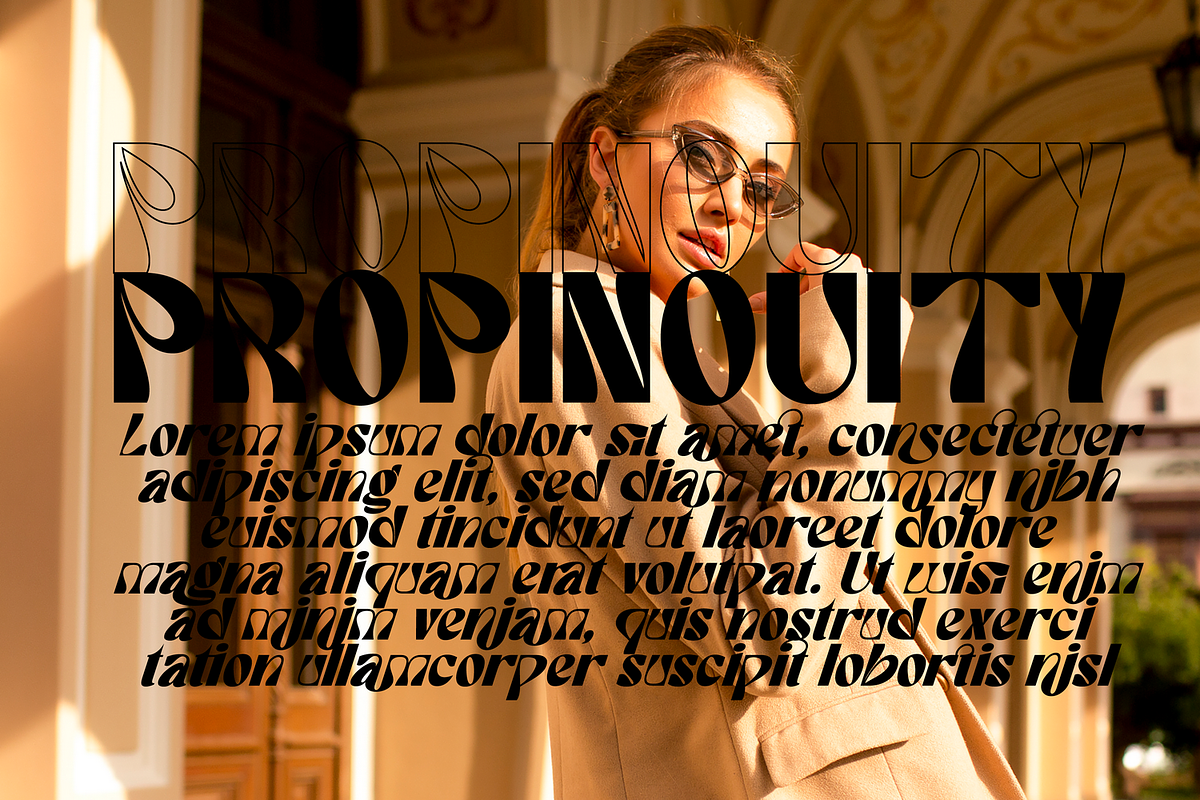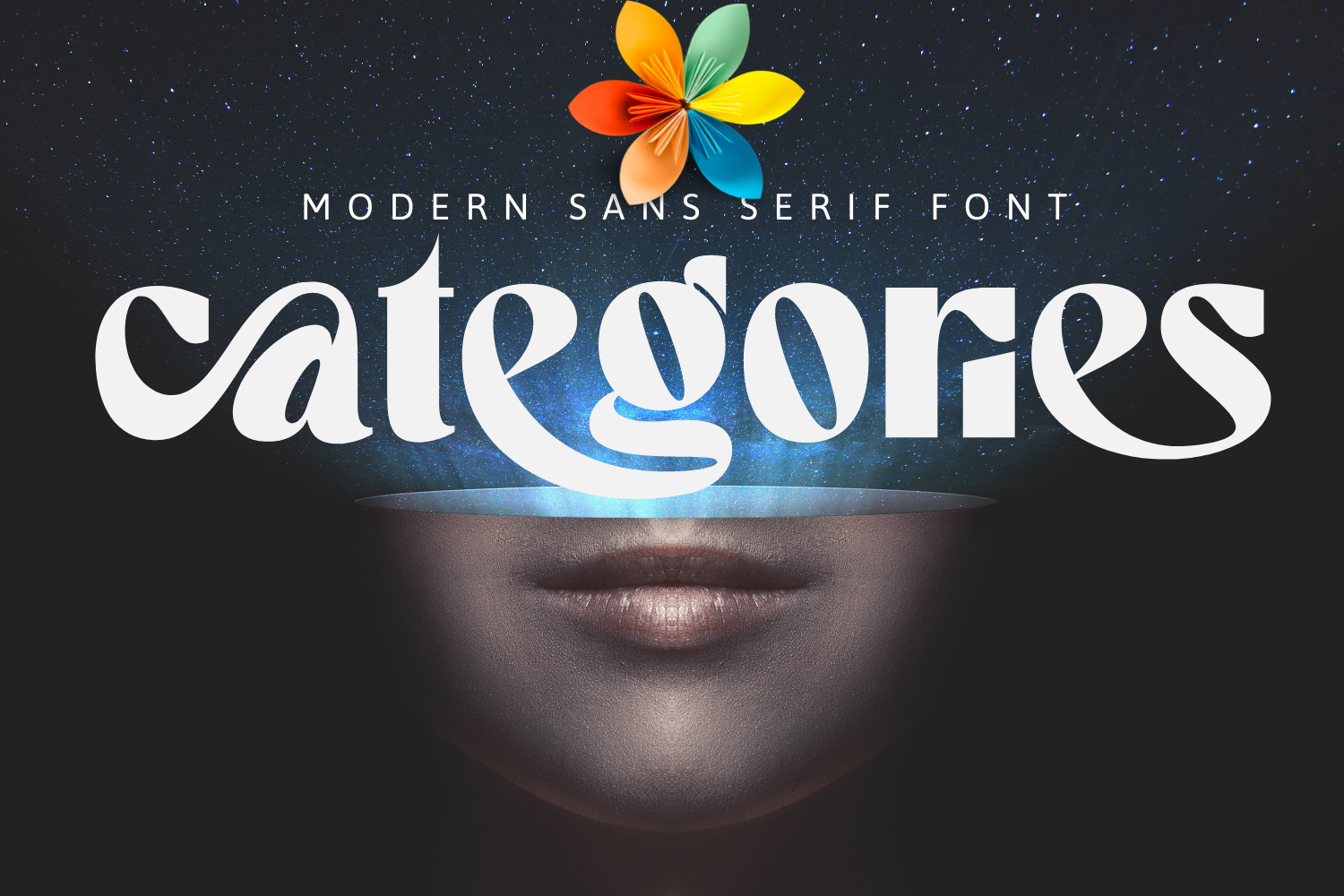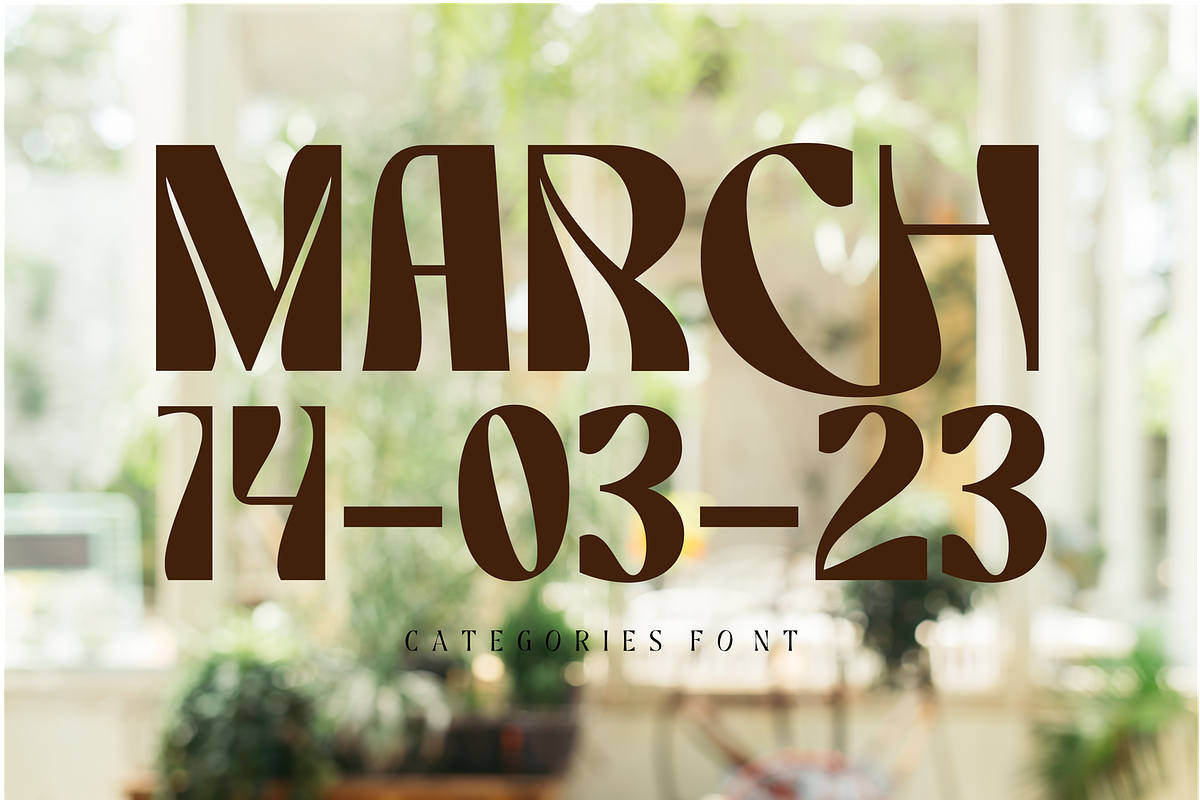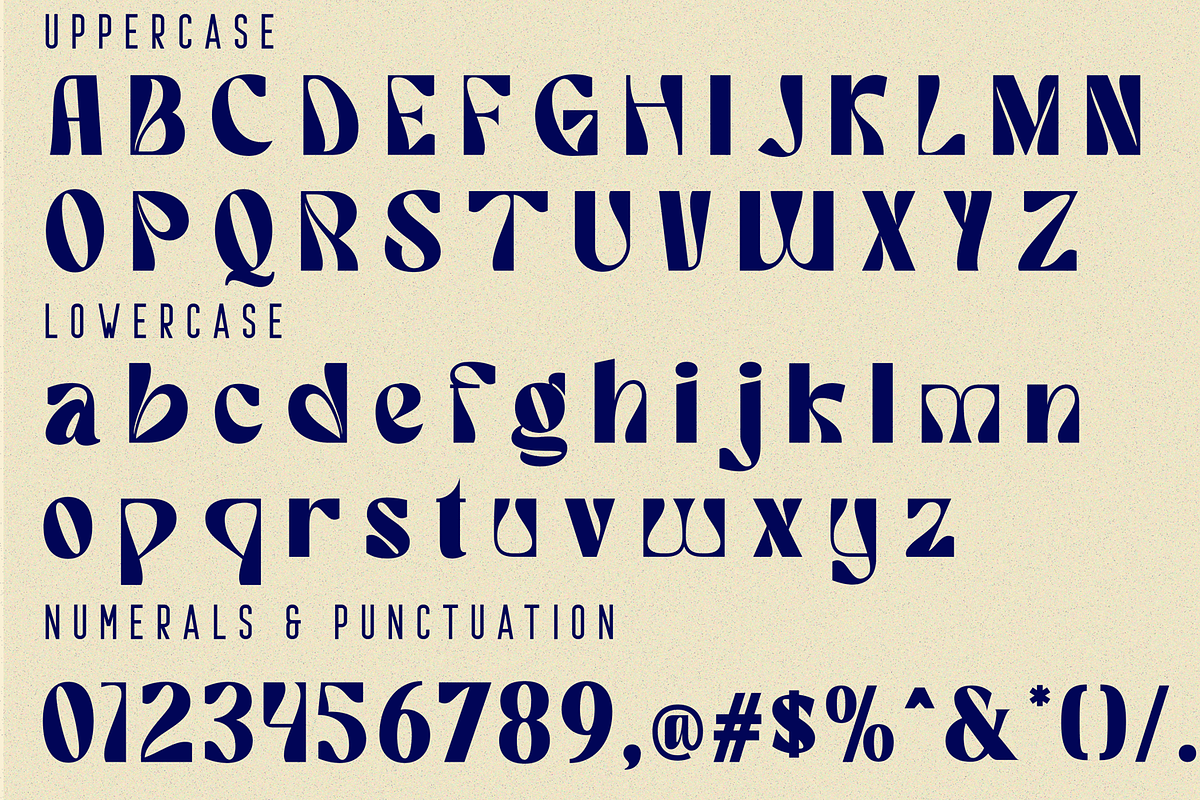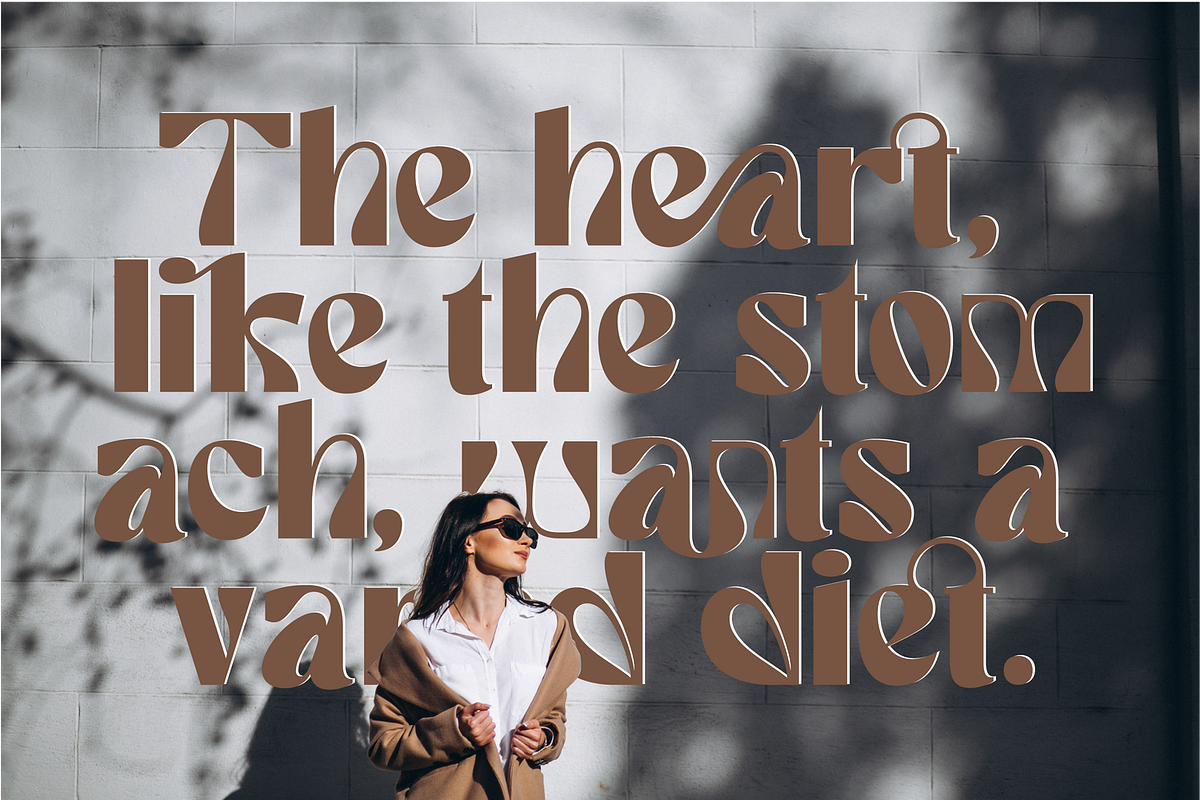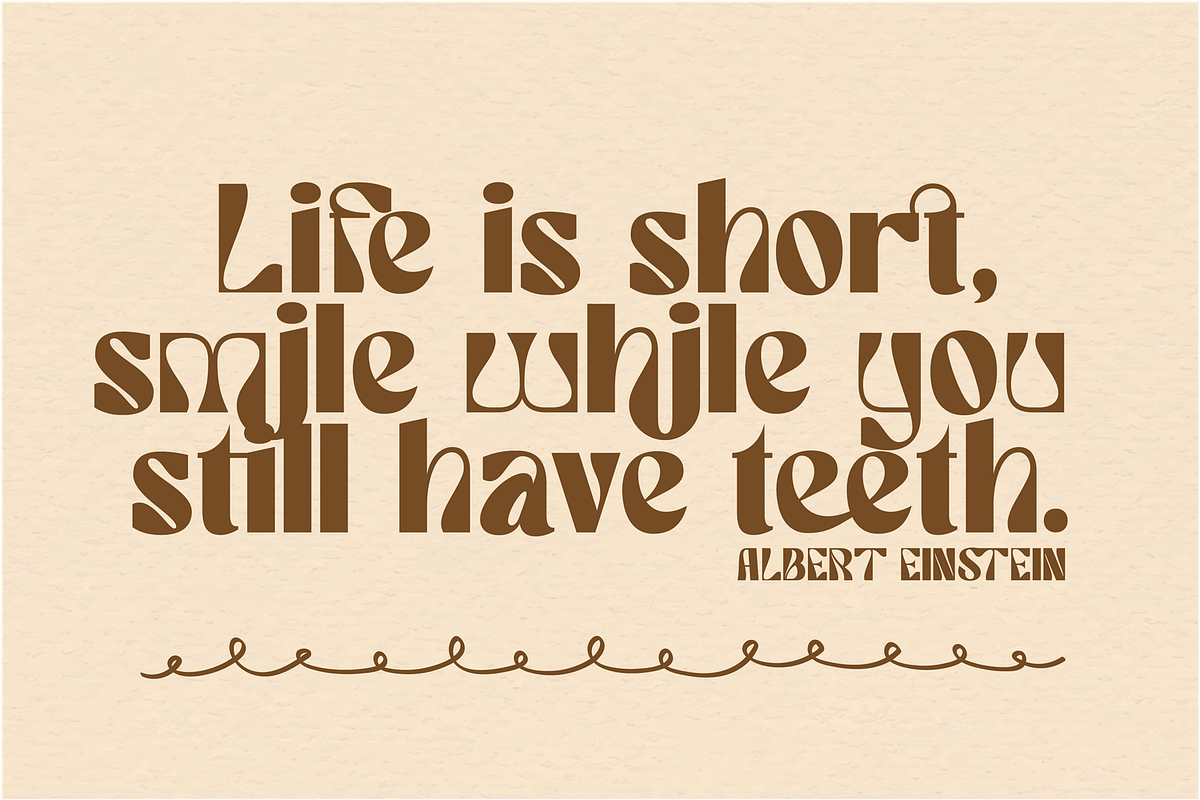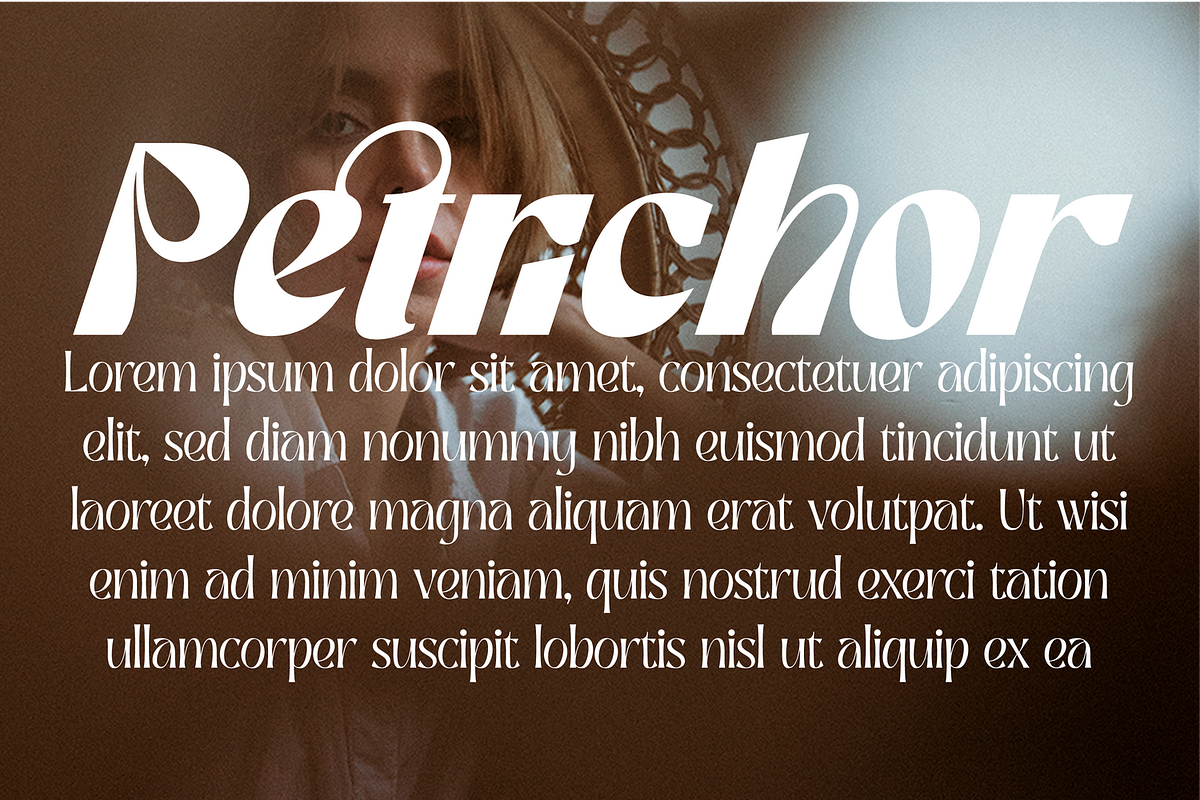
Categories Elegant Font
Categories Elegant Font - a modern serif font Inspired by elegant and luxury. This font can look more classic (conservative) serif, which is perfect for texts. A Classic font that we create with unique shape and any creative ligature and alternate perfect for branding or logotype design. Fearless and chic typeface perfect for big headlines for both print and web.
To make it look more unique, here we prepared some ligatures:
af ag am an as ca ce cg cs ct cv cx ea ee eg es et fb fj hf hm hi hk hn hr hs hy ib ih ik il it jb jh jk jl jt mf mm mi mk mn mr ms my nf nm ni nk nn nr ns ny ra ri rj rt si sj ti tt AS AV CA CF CH CM CN CP CR ET EZ FT FZ GT HB HD HE HF HH HP HR KS LA MB MH ND NE NF QS ST
Categories is also included full set of:
- Special Ligatures